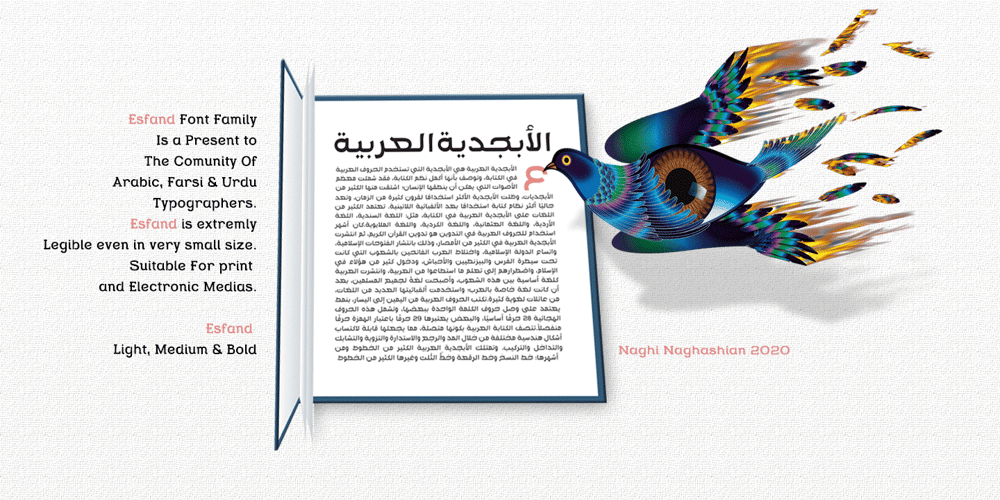
Esfand
Esfand font
Esfand Font Family was designed by Naghi Naghashian and published by Naghi Naghachian. Esfand contains 3 styles and family package options. Esfand is a modern Sans Serif font family in three weights, Light, Medium and Bold.The Esfand innovation is a contribution to the modernisation of Arabic typography; gives the Arabic font letters real typographic arrangement and provides for more typographic flexibility. Esfand supports Arabic, Persian, and Urdu and includes proportional and tabular numerals for the supported languages. The Esfand Font family is available in Three weights; Light, Medium and Bold. Its intuitive design arrangement fulfills the following needs: – It is precisely crafted for use in electronic and print media. Esfand is not based on any pre-digital typefaces and it is not a revival. Rather, its forms were created with today’s ever-changing technology in mind. – Esfand is suitable for multiple applications, and gives the widest potential for acceptability. – It is extremely legible not only in its small sizes, but also when the type is filtered or skewed, e.g., in Photoshop or Illustrator. Esfand’s simplified forms may be artificially oblique with InDesign or Illustrator, without any degradation of its quality for the effected text. – Esfand is an eye-catching and classy typographic image that was developed for multiple languages use and writing conventions. – Esfand uses the very highest degree of geometric clarity along with the necessary amount of calligraphic references. The Esfand typeface is of a high vibration that is finely balance between calligraphic tradition and the contemporary sans serif aesthetic commonly seen in Latin typography.